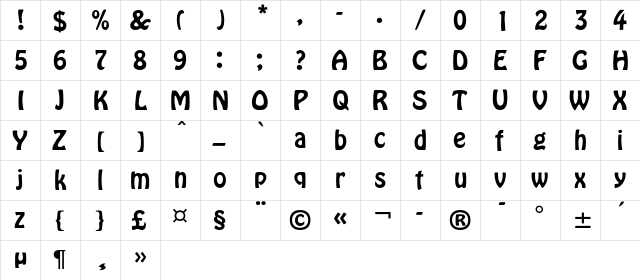
MorrisModernC Regular
Design Context for MorrisModernC Typeface
MorrisModernC offers clean, dependable letterforms without strong stylistic allegiance, making it a practical choice for designers who need flexibility.